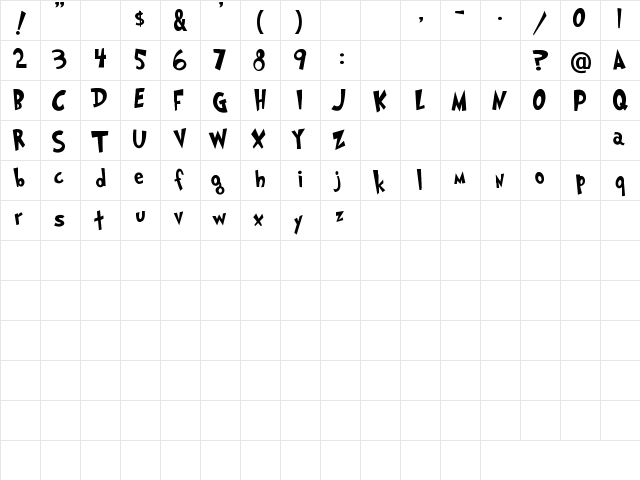
Grinched Regular
| Designer | sharkshock |
Design Context for Grinched Typeface
Grinched is a composed and adaptable typeface that performs quietly and consistently across a wide range of design contexts.